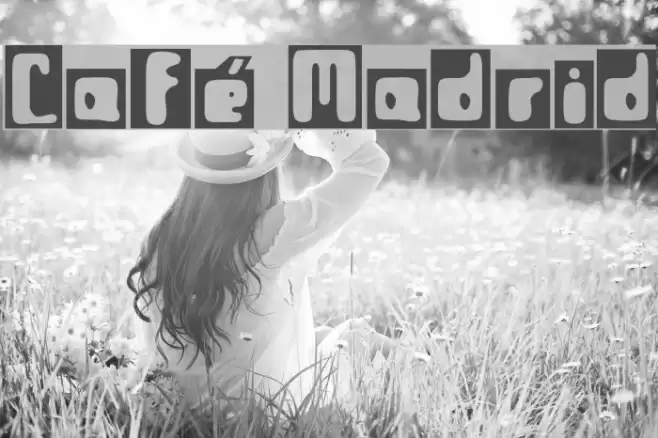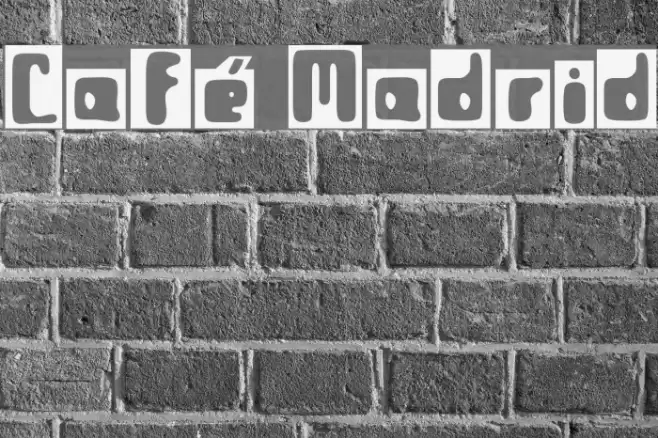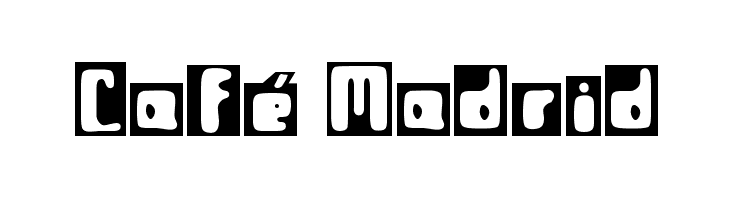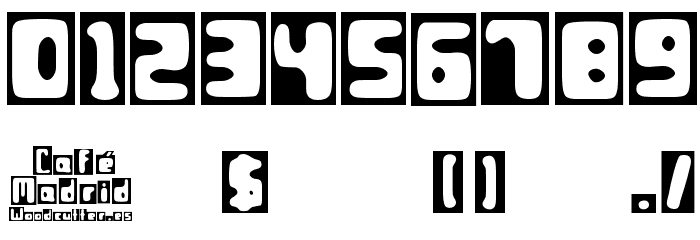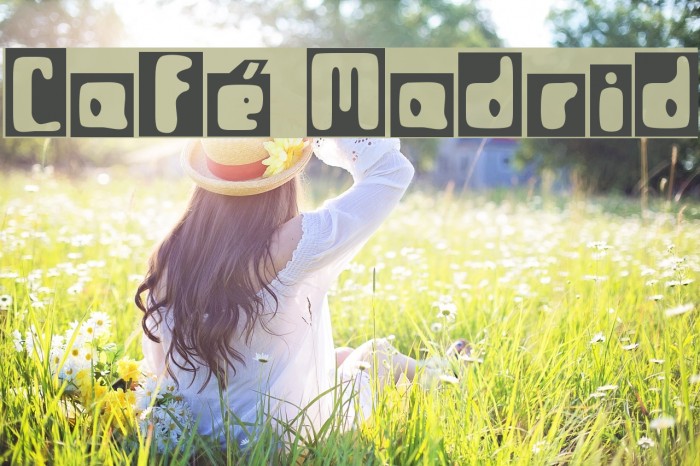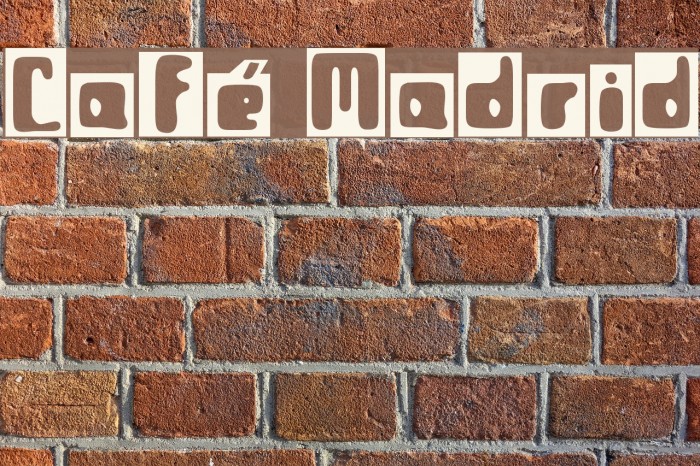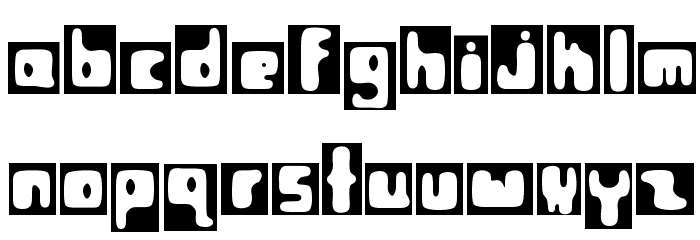
Café Madrid Font
Café Madrid Description
This font features a bold and playful design with a distinctive, bubbly appearance. Each character is enclosed in a square, creating a uniform and structured look. The letters have a unique, organic flow with rounded edges and varying thickness, giving them a whimsical and eye-catching style. The numbers and special characters follow the same playful theme, making the font suitable for creative and informal projects. Its boldness ensures high visibility, making it ideal for headlines or attention-grabbing text.
A bold, playful font with a bubbly, enclosed design.
- Proposed Projects: Ideal for children's books, playful branding, posters, and creative event invitations.
- Overall Style: Playful, Whimsical